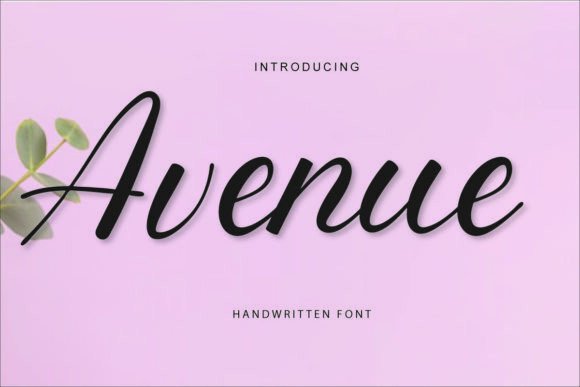
The Elegance of Avenue Font: A Designer’s New Best Friend
I still remember the last time I was working on a wedding invitation project, and I just couldn’t seem to find the perfect font. My client wanted something elegant, yet personal, and I was determined to deliver. That’s when I stumbled upon Avenue Font, a stylish and incredibly elegant handwritten font that has since become my go-to for all things beautiful and bespoke.
A Designer’s Honest Review
What I Love About Avenue Font ✨
- ✅ Elegant and sophisticated, perfect for high-end designs
- ✅ Beautifully crafted with a personal touch
- ✅ Versatile and adaptable to various design projects
While Avenue Font is an exceptional font, there are a few things to keep in mind:
- 🤔 Some letters may have slight inconsistencies in width, which can affect justified text
- ⚠️ Not ideal for body text or long paragraphs, as it’s best suited for headings and titles
A Practical Guide to Using Avenue Font
- Experiment with OpenType features, such as ligatures and stylistic alternates, to add more personality to your design
The Story Behind Avenue Font
Avenue Font was designed with the intention of creating a beautiful, elegant handwritten font that captures the essence of sophistication and refinement. Inspired by classic calligraphy and modern typography, Avenue Font is the perfect blend of traditional and contemporary design.
Q: What type of designs is Avenue Font best suited for?
A: Avenue Font is ideal for designs that require an elegant and personal touch, such as wedding invitations, thank you cards, quotes, greeting cards, logos, and business cards.
Q: Is Avenue Font suitable for body text or long paragraphs?
A: No, Avenue Font is best suited for headings and titles, as it may not be ideal for body text or long paragraphs due to its elegant and refined nature.